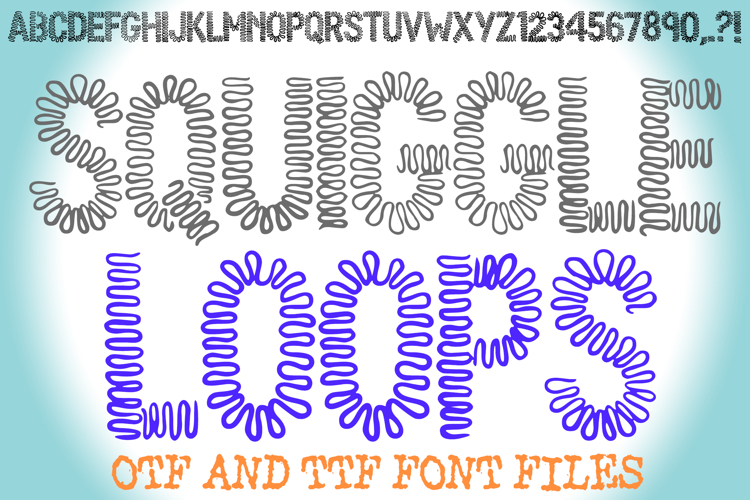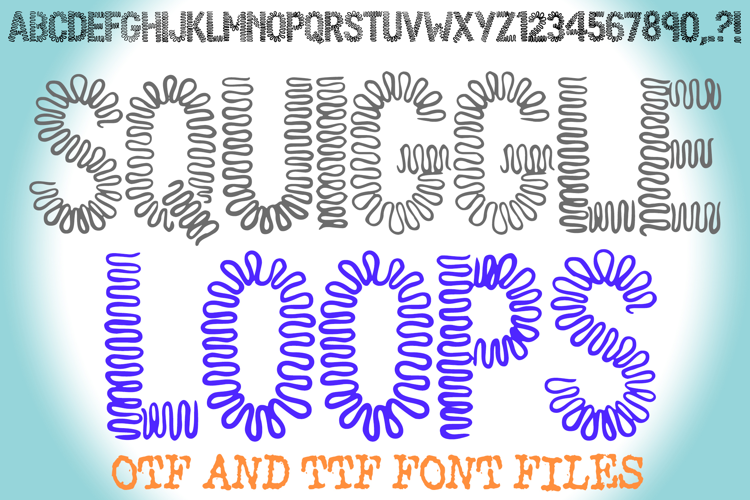
Squiggle Loops Font Fun Hand-Drawn Scribble Typeface Loopy
Add a sense of high-energy motion to your creative projects with the Squiggle Loops Font! This one-of-a-kind display typeface is formed entirely from a single, continuous scribbling line, creating a unique "loopy" or "zigzag" texture for every character. Its frantic yet fun aesthetic makes it the perfect choice for designs that need to feel artisanal, high-energy, and completely unique.
Capturing a modern "sketchbook" and doodle vibe, this font is ideal for creators looking for a decorative headline style that stands out with its intricate, wire-like construction. Whether you are designing for a kids' brand, an avant-garde poster, or custom craft projects, the Squiggle Loops Font offers a distinctive look that breaks away from traditional solid letterforms.